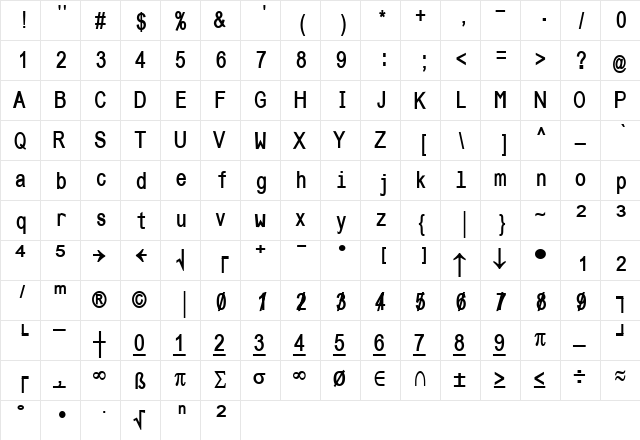
LFBOLD Regular
Design Context for LFBOLD Typeface
LFBOLD is a composed and adaptable typeface that performs quietly and consistently across a wide range of design contexts. The heavy weight commands attention and anchors typographic hierarchies.
Pro Tip: Use LFBOLD in both headline and body roles to test its range before committing to a single application.